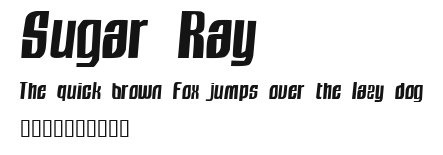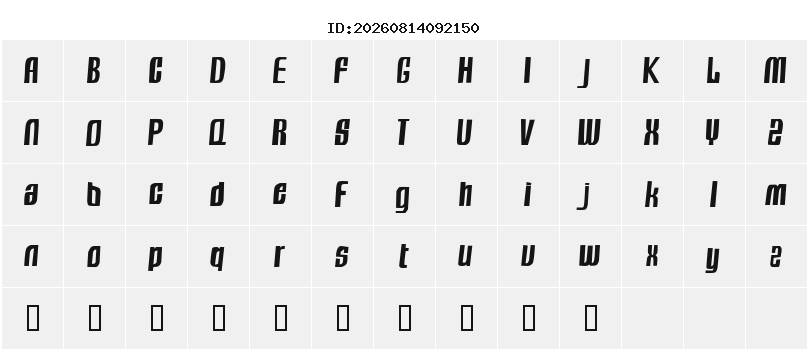
• Font Name: Sugar Ray
• Full Font Name: Sugar Ray
About Sugar Ray.ttf
Sugar Ray.ttf is a modern, elegant sans-serif font designed for ultimate readability and visual harmony. Perfect for branding, headlines, web design, and print materials.